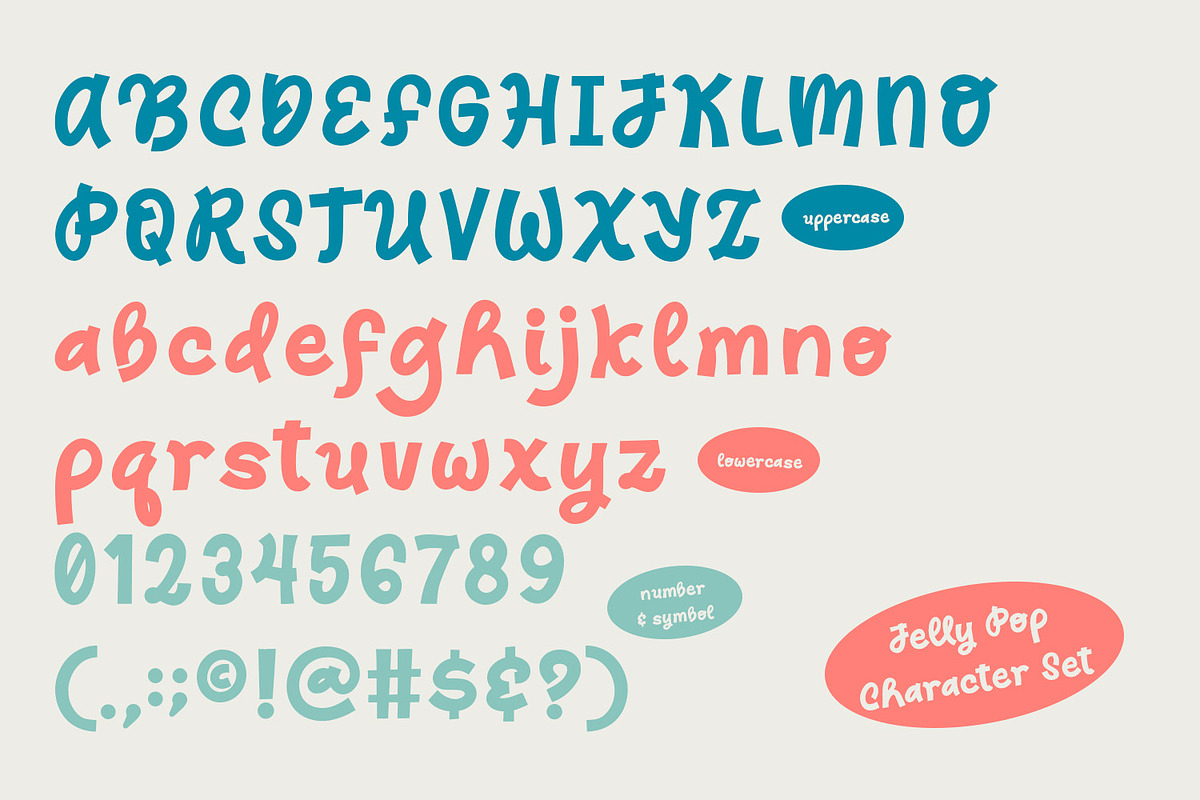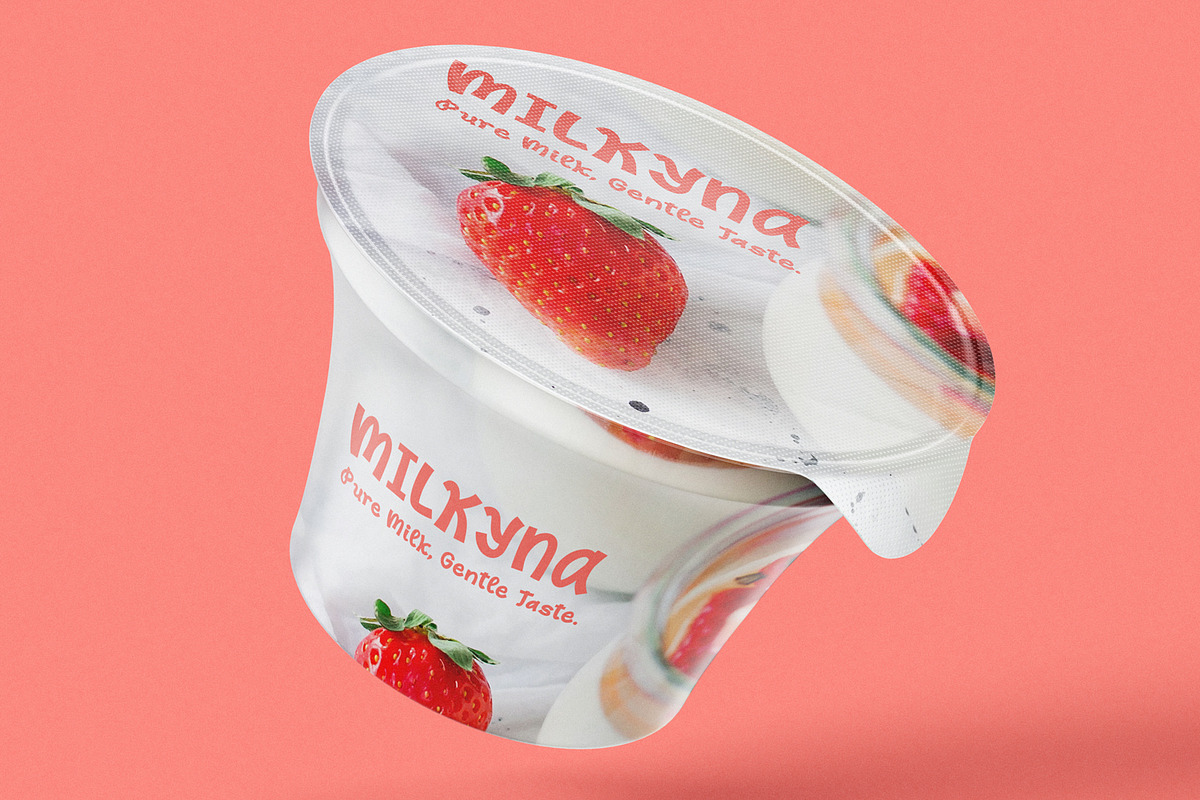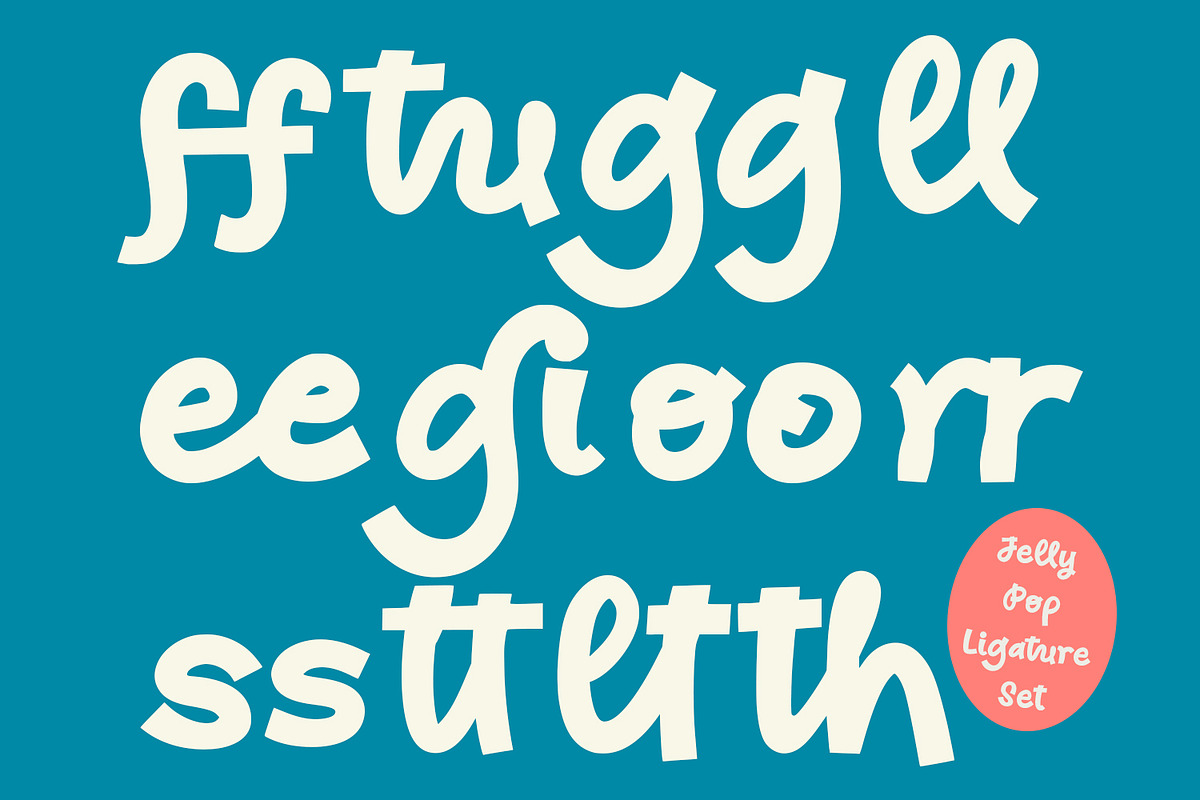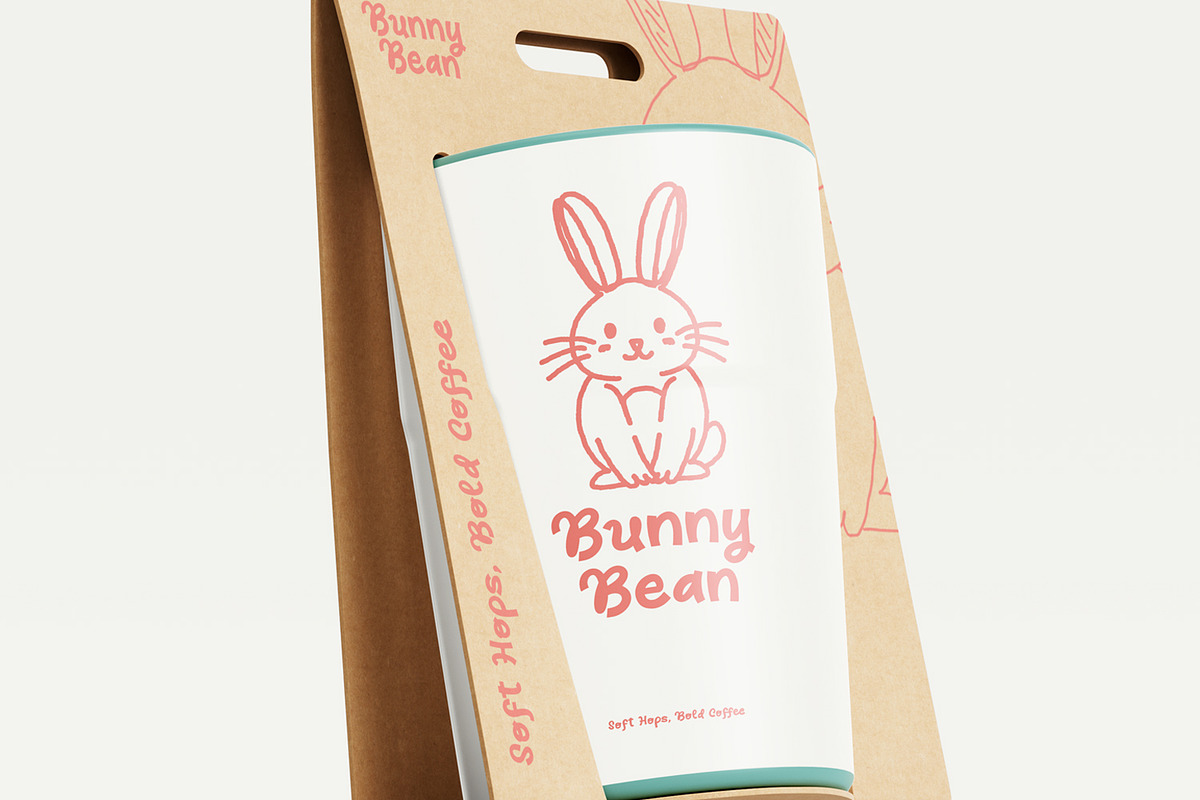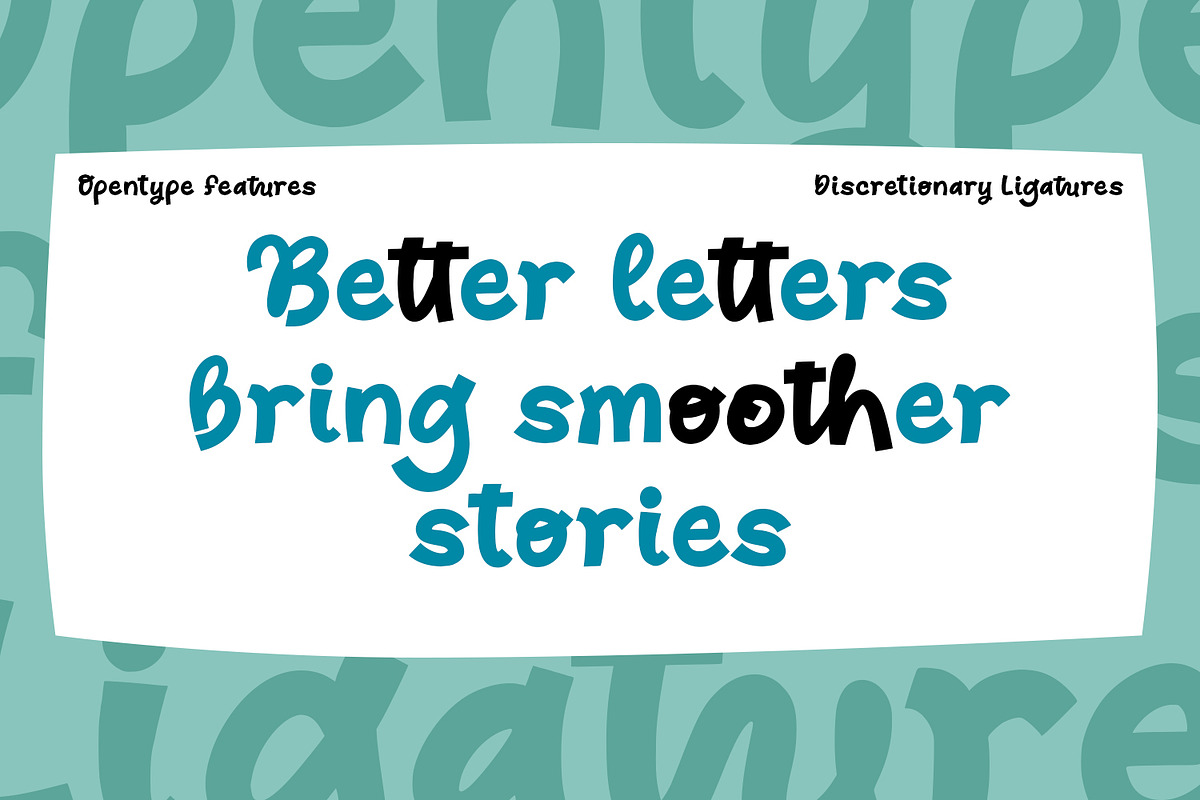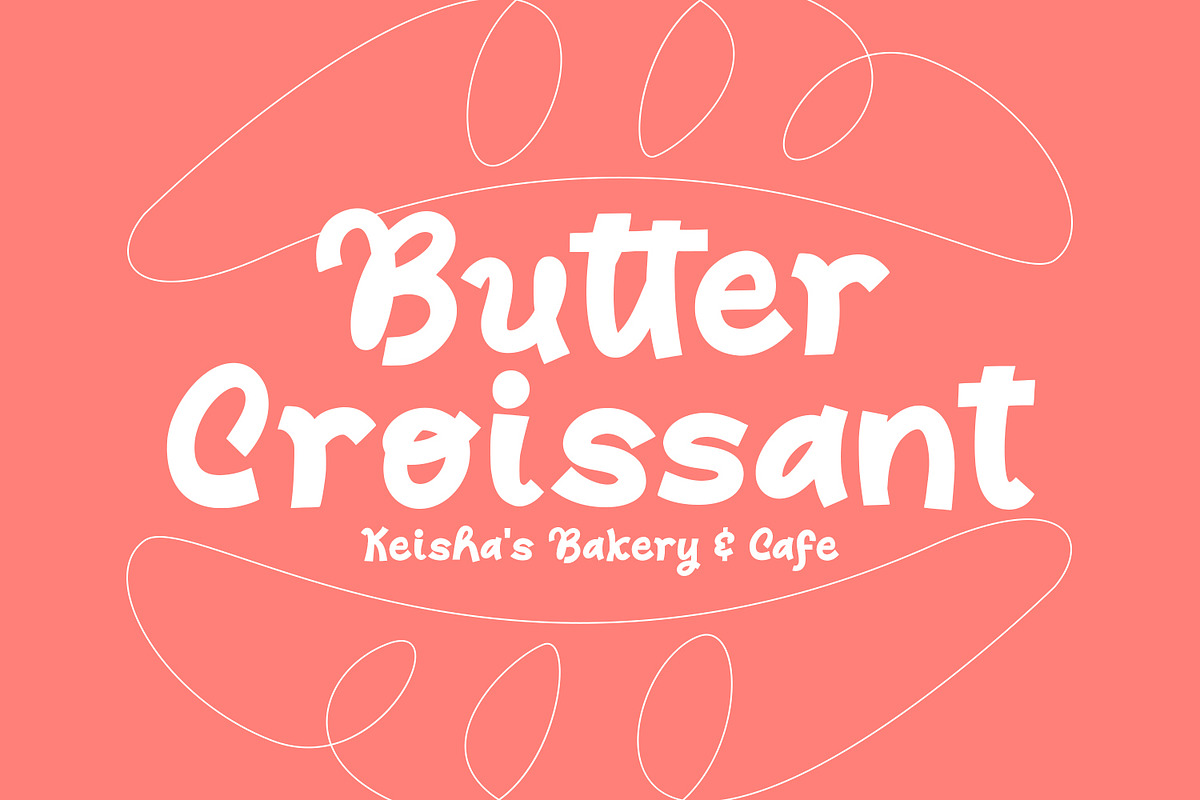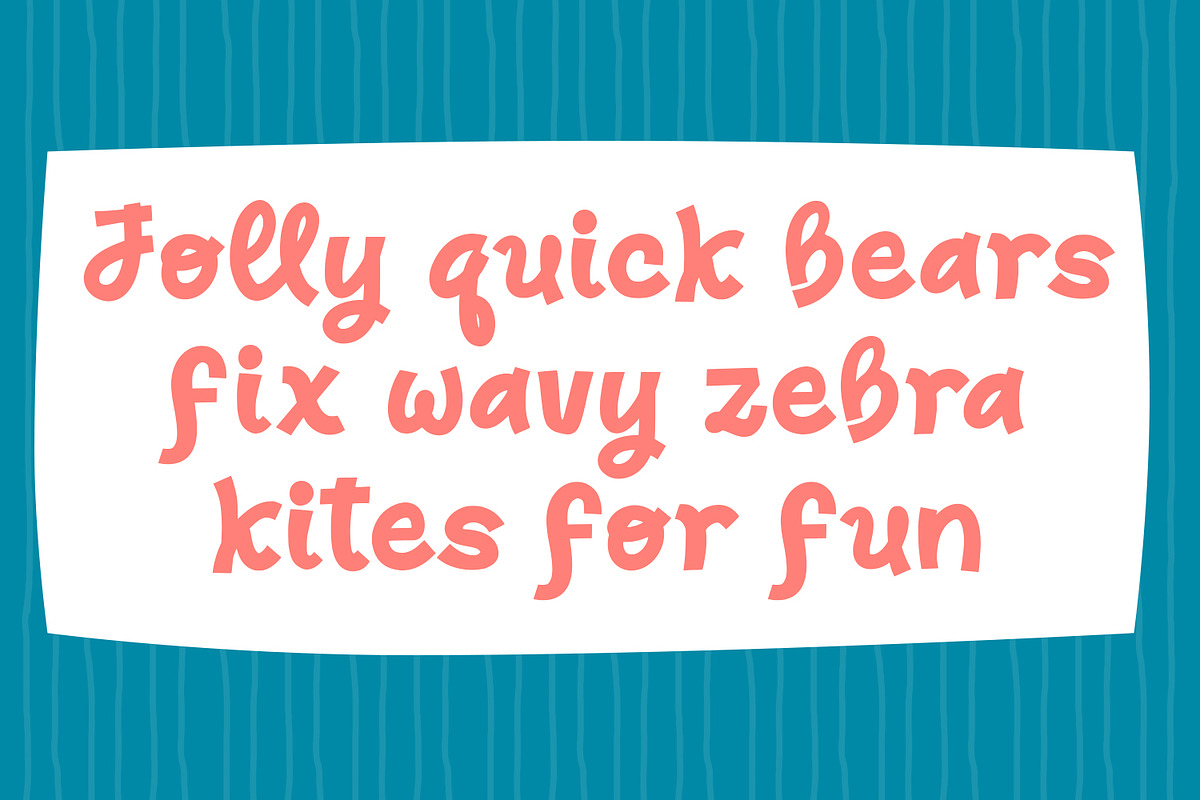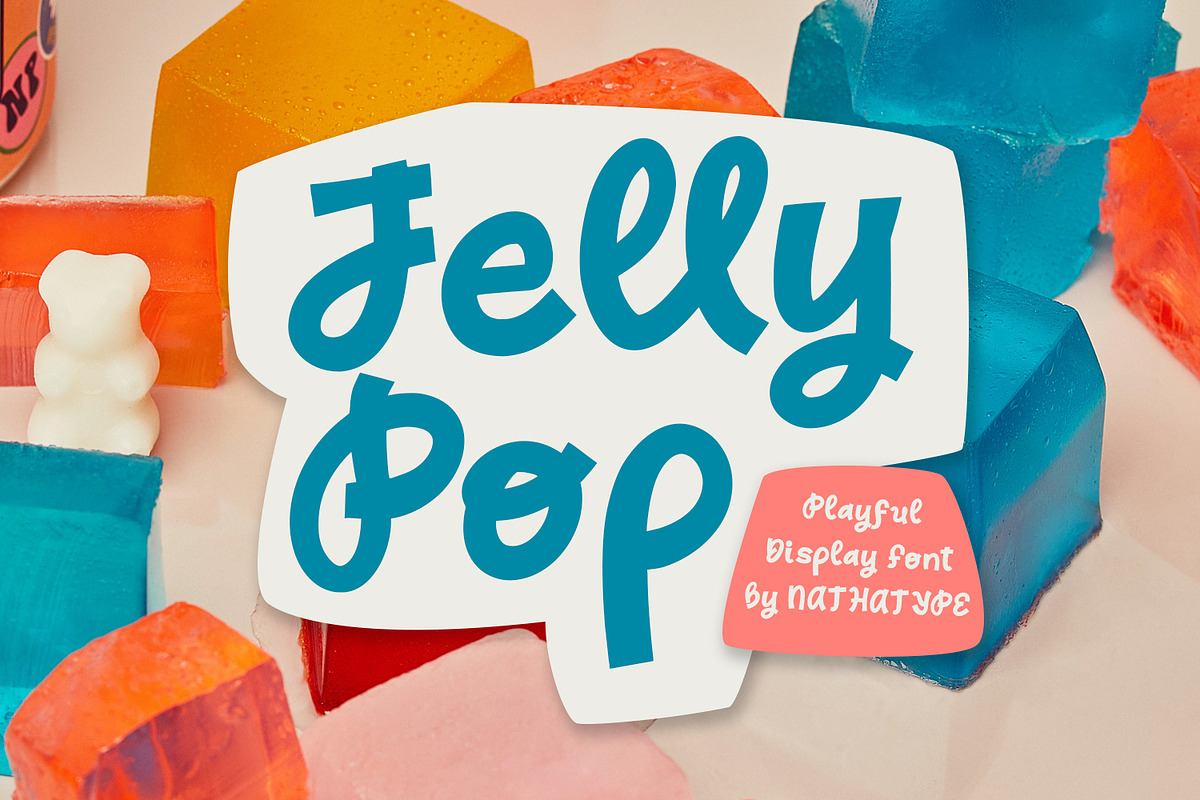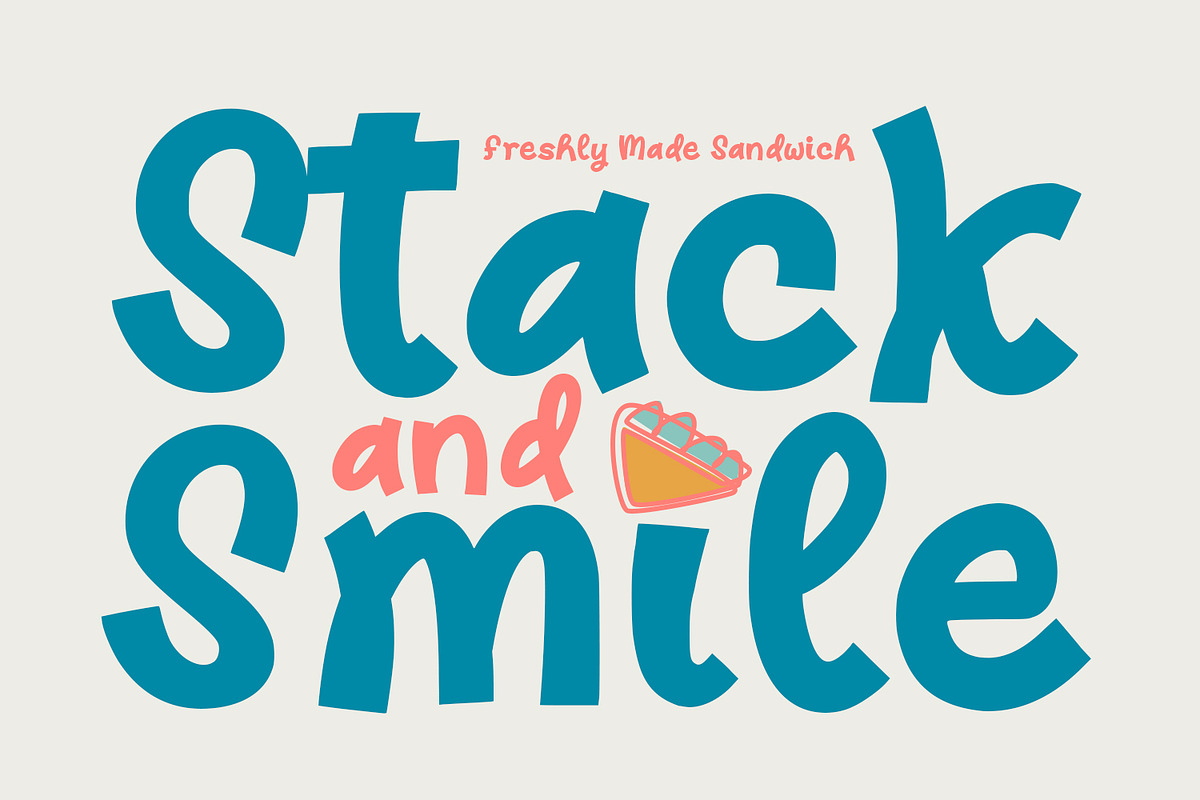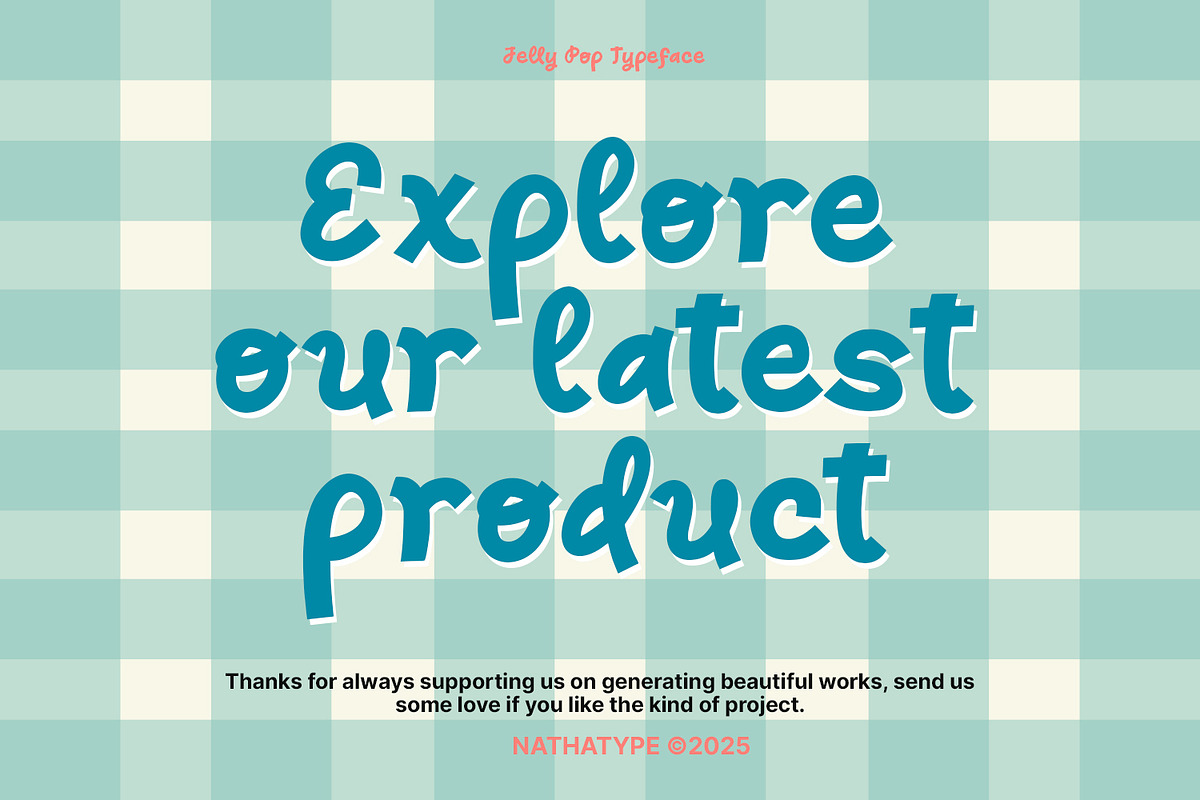
Jelly Pop
Jelly Pop is a vibrant and expressive display font. The thick letterforms give Jelly Pop a strong visual presence, making it perfect for headlines and standout designs. Its low contrast structure ensures consistency and readability, even at large sizes, while the subtle handwritten influence softens the overall look. The slightly organic curves and playful proportions create a relaxed and approachable aesthetic that works beautifully in modern creative projects. In addition, enjoy the features here.
Jelly Pop fits in logos, quotes, branding, posters, and many more designs. Find out more ways to use this font by taking a look at the font preview.